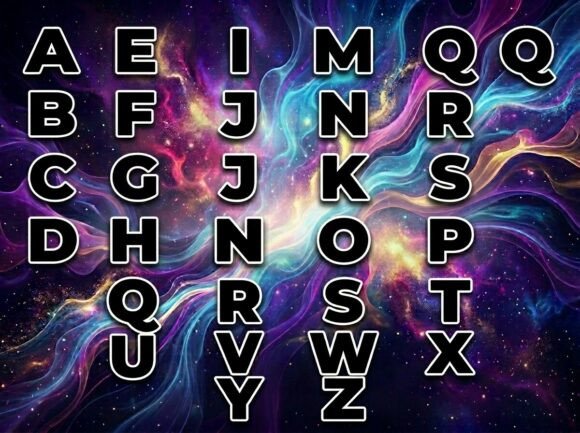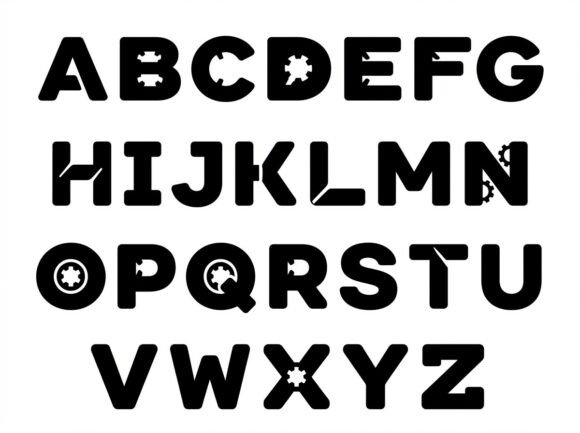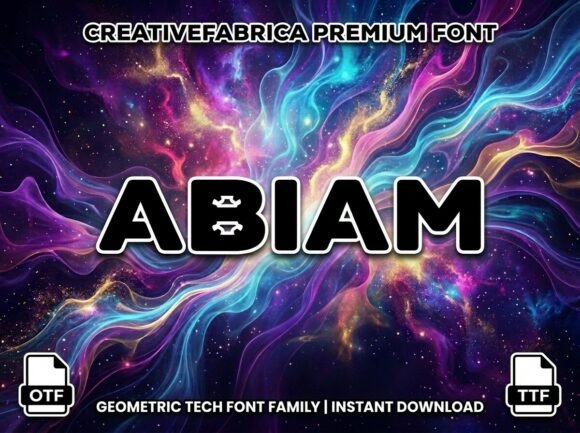
Designing for the Cosmos: The Power of Abiam Font
You’ve spent hours pouring over your design, and it’s finally time to add the finishing touches. But something’s missing – a spark of energy that propels your creation into the stratosphere. That’s where Abiam Font comes in – a futuristic display font designed to take your designs to new heights. Built for galactic impact, this ultra-bold typeface boasts wide letterforms with a unique geometric construction and subtle “sliced” apertures that evoke high-tech machinery and deep-space exploration.
As a designer, you know that the right font can make all the difference. Abiam Font delivers a sophisticated yet powerful aesthetic that’s perfect for sci-fi gaming titles, innovative tech logos, aerospace branding, and high-impact cinematic headers. Whether you’re crafting a brand identity or a standout title, Abiam Font gives you the tools you need to create something truly out of this world.
Abiam Font Key Features
- Unique Characteristics: The font features a unique, modern design with a mix of geometric and organic elements, making it ideal for use in branding, advertising, and digital design.
- Font Style: Abiam Font is available in a single style, but it can be easily customized to create different font weights, styles, and effects using design applications.
Abiam Font Review
When I first laid eyes on the Abiam font, I was immediately struck by its unique blend of modern and classic elements. The clean lines and elegant curves ✨ make it perfect for use in a variety of design projects, from logos and branding to digital interfaces and print materials.
One of the things I appreciate most about Abiam is its versatility. It comes in a range of weights and styles, allowing designers to easily adapt it to suit their specific needs. Additionally, the font’s open-source license ✨ makes it accessible to designers of all levels and backgrounds.
- ⚠️ Limited stylistic options: While Abiam’s range of weights and styles is impressive, it may not offer the level of customization some designers require.
Overall, I’m impressed by the Abiam font’s unique blend of style and functionality. While it may have some limitations, its versatility and accessibility make it a great choice for designers looking to add a touch of elegance to their projects.
Tips for Getting the Most Out of Abiam Font
Here are some tips for getting the most out of Abiam font:
- Use Abiam font for headings and titles to add a touch of elegance.
- Combine Abiam font with other fonts to create a unique and visually appealing design.
- Experiment with different font sizes and styles to add depth and interest to your design.
Abiam font is commonly used in:
- Business cards and stationery
- Wedding invitations and event materials
Alternatives to Abiam Font for Designers
Lato is a modern sans-serif font designed by Łukasz Dziedzic. It’s perfect for use in digital design, such as websites and mobile applications. Lato is highly legible and suitable for body text, making it an excellent alternative to Abiam Font for large blocks of text.
Compared to Abiam Font, Lato has a more modern and clean design, while Abiam Font has a more traditional and elegant feel. Lato is also more versatile and can be used for both headings and body text.